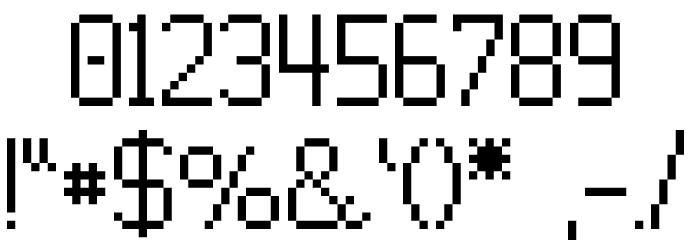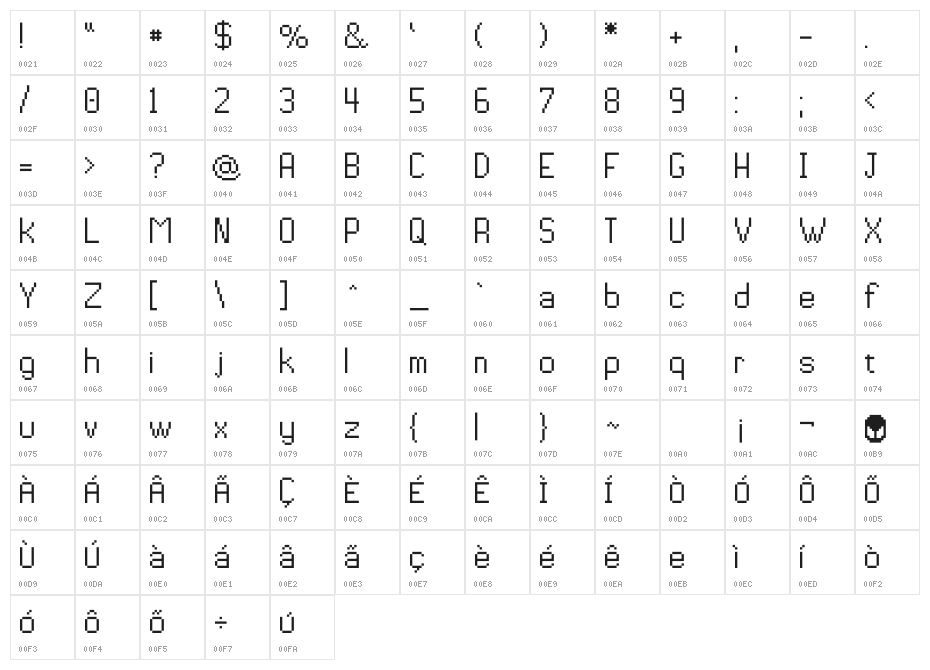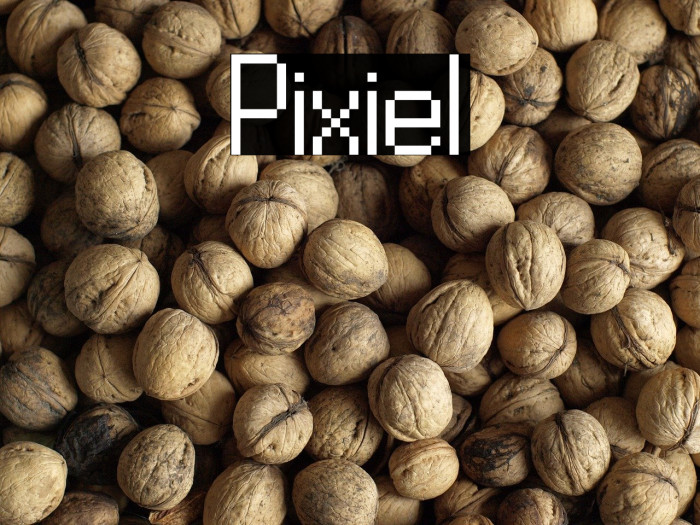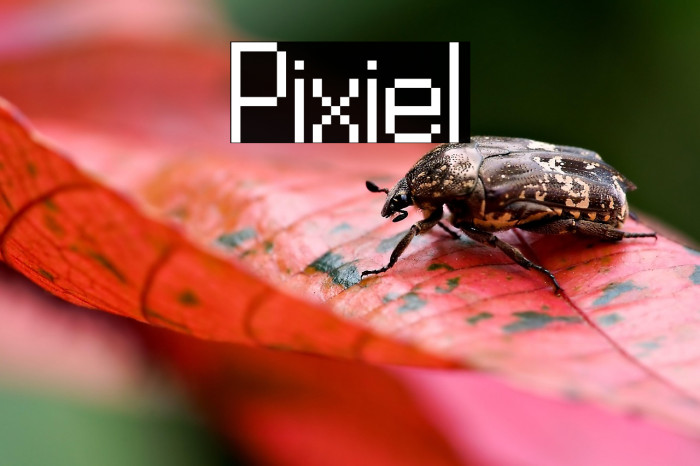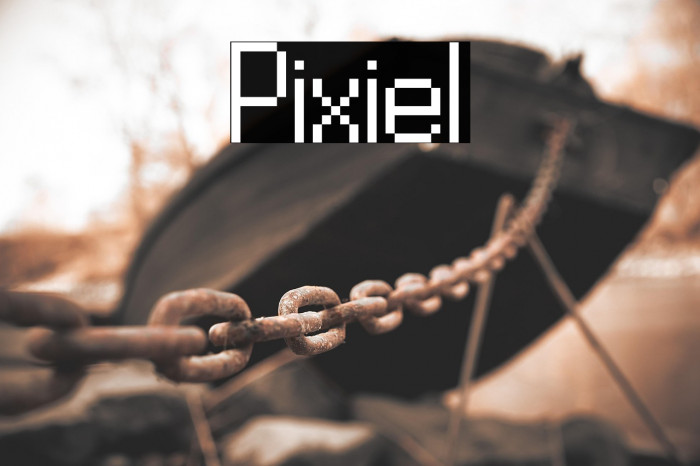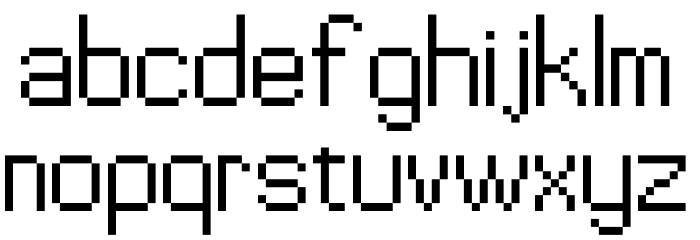
Pixiel Font
Pixiel Description
This font features a pixelated, blocky design reminiscent of early digital displays and video games. Each character is constructed with a grid-like precision, giving it a distinctly retro and digital aesthetic. The uppercase and lowercase letters maintain a consistent height, contributing to a uniform appearance. Numbers and special characters follow the same pixelated style, ensuring a cohesive look across all glyphs. The font's simplicity and clarity make it highly legible, even at smaller sizes, while its unique style adds a playful and nostalgic touch.
| Proposed Projects | Ideal for retro video game designs, digital-themed posters, and nostalgic branding projects. |